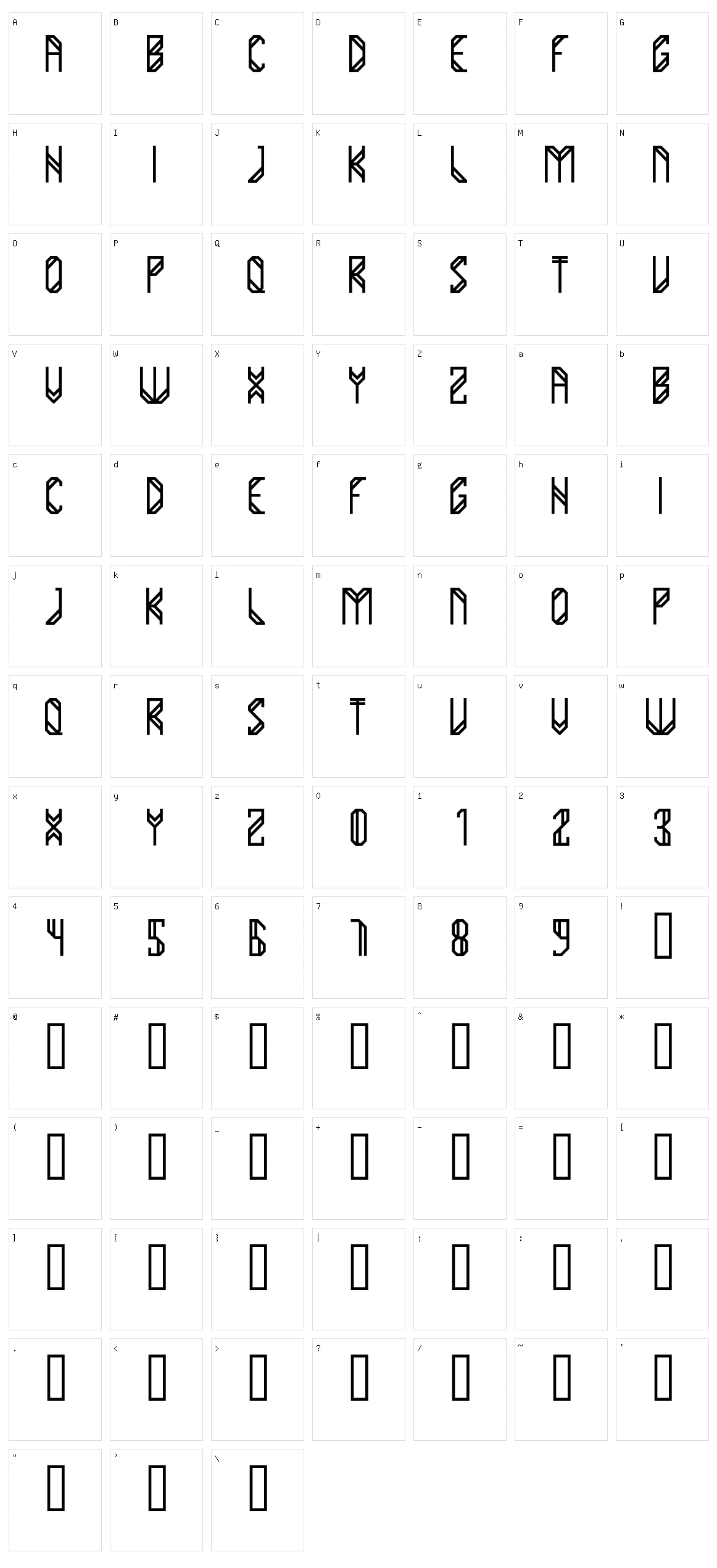
YUMA TYEPEFACE
Yuma is experimental fonts with straight glyph, inspired with typical Navajo textiles who have strong geometric patterns.
Yuma is a font designed by Gumpita Rahayu in 2013. Personal use ONLY!.